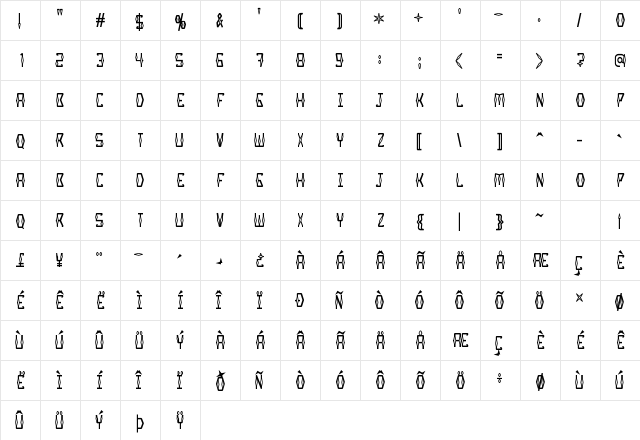
Miswak Regular
| Foundry | Xerographer Fonts |
| Designer | Max Infeld - Xerographer Fonts |
Design Context for Miswak Typeface
Miswak takes a measured approach to typography — its balanced proportions and neutral character make it a reliable workhorse for both digital and print work.